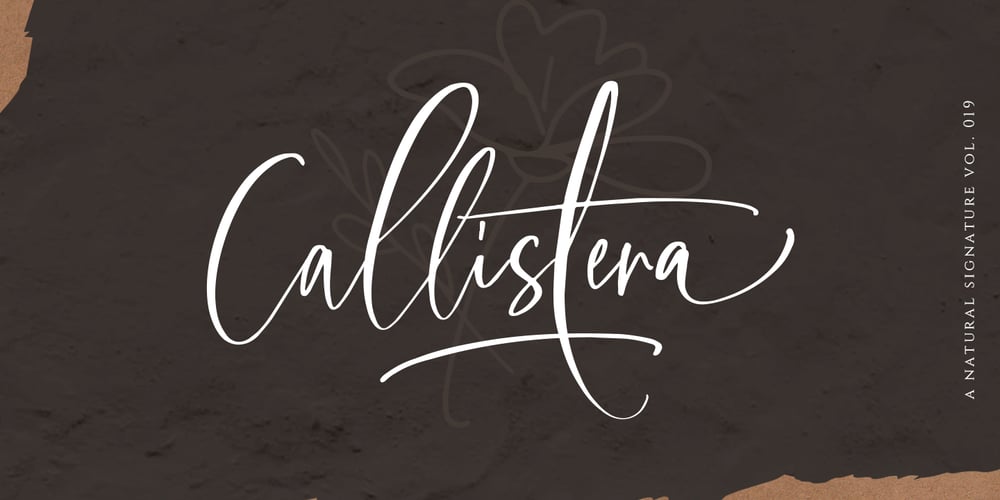
Callistera Script Font Family was designed by Sarid Ezra and published by Sarid Ezra. Callistera Script contains 1 styles and family package options. Callistera Script is a natural also expressive font that contain lowercase, uppercase, symbol, and also mult- language support. It comes with ligatures, contextual alternates, stylistic alternates, swashes, and also underline. Callistera Script also suitable for logo branding, beautiful fashion design, suitable for wedding invitations, or handwritten quotes. Also with PUA encoding. For another questions, please send a mail to saridezra@gmail.com. Thank You!